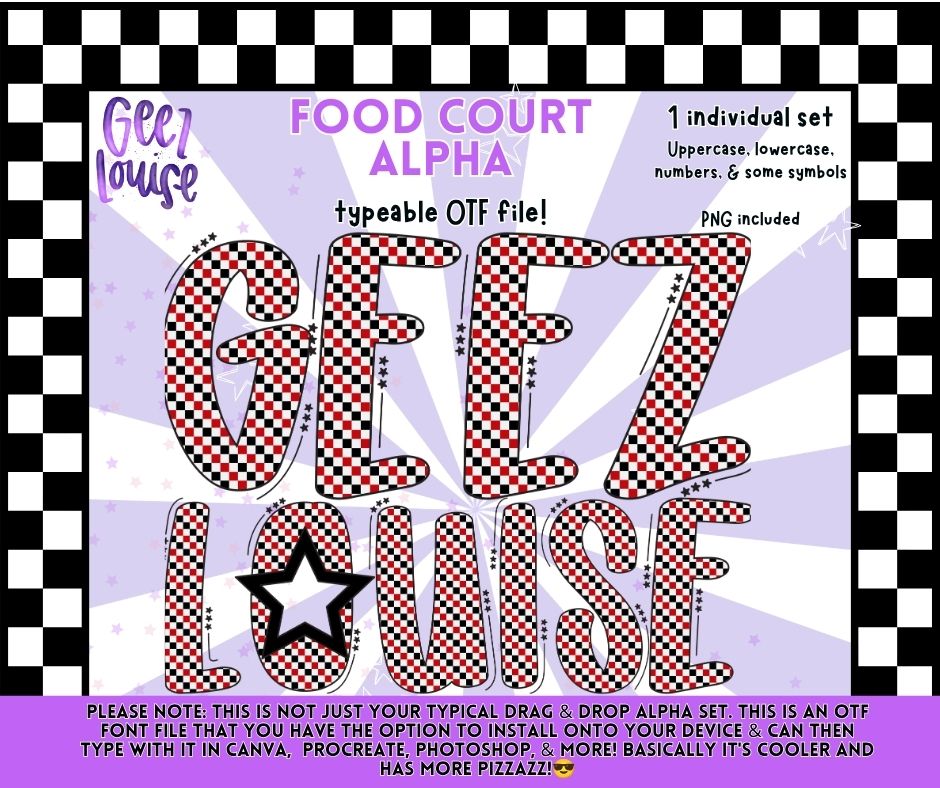
Food Court Alpha Font OTF | Red Checker Alphabet PNG | Retro Diner Font | Typeable Font
๐โค๏ธ Bring retro diner vibes to your next project with Food Court Alpha! This bold checkerboard font features a classic red, black, and white pattern with fun retro styling that's perfect for food-themed graphics, sports designs, boutiques, and trendy apparel.